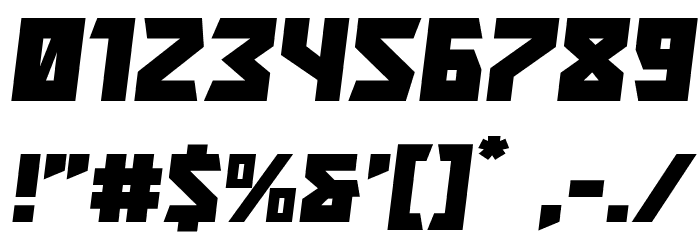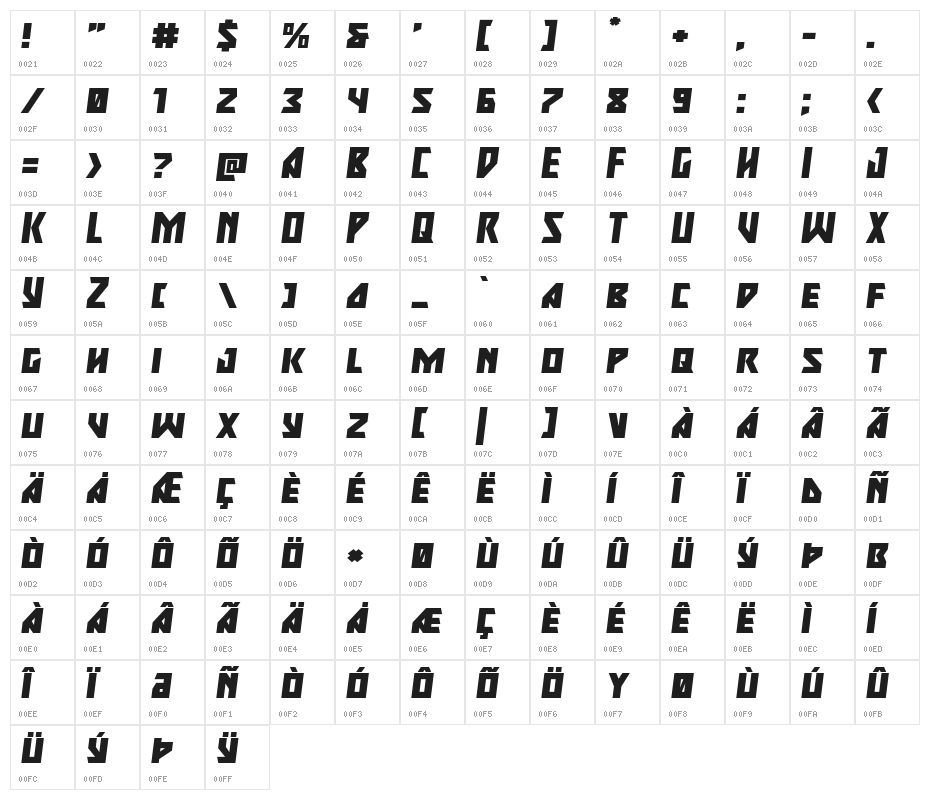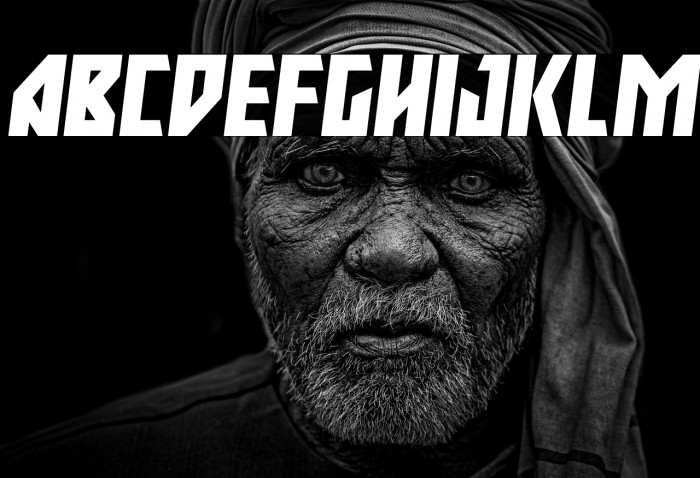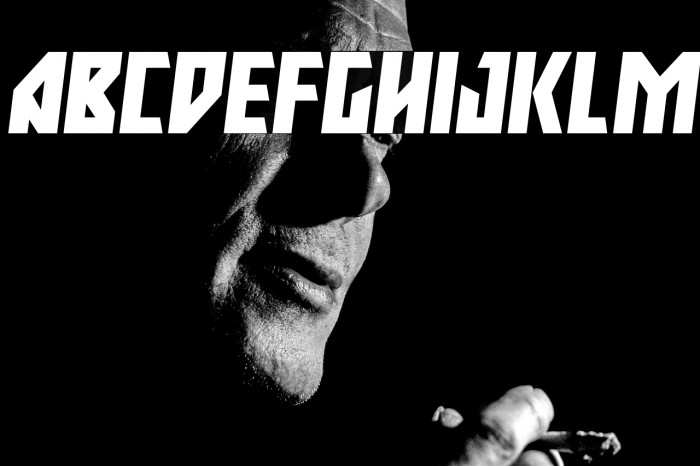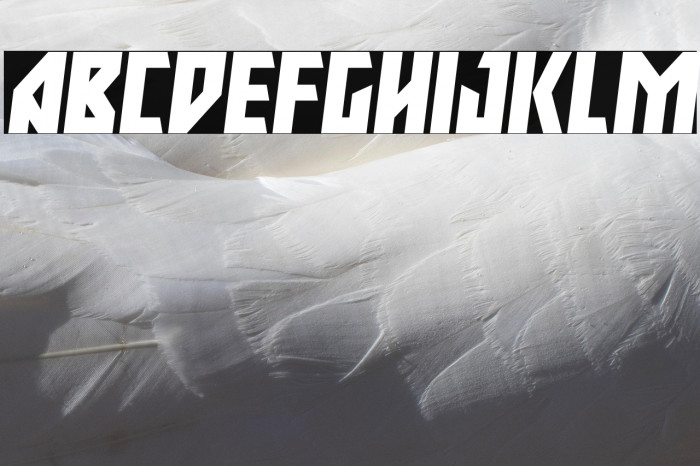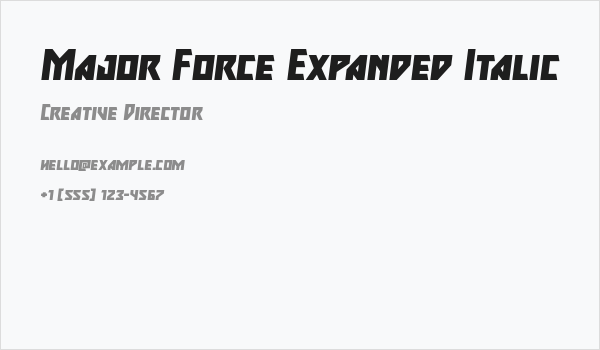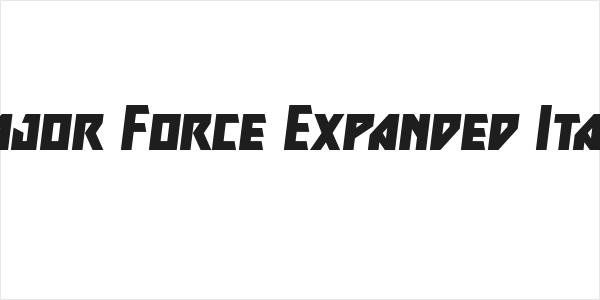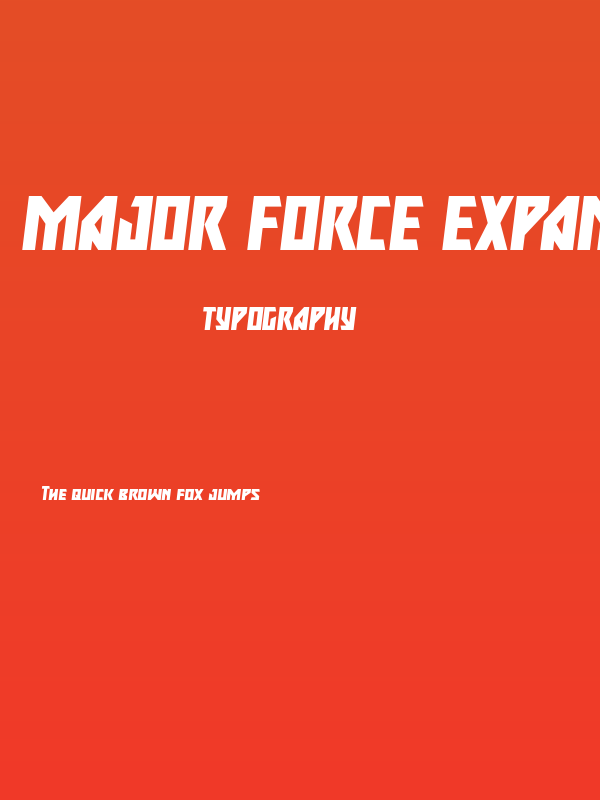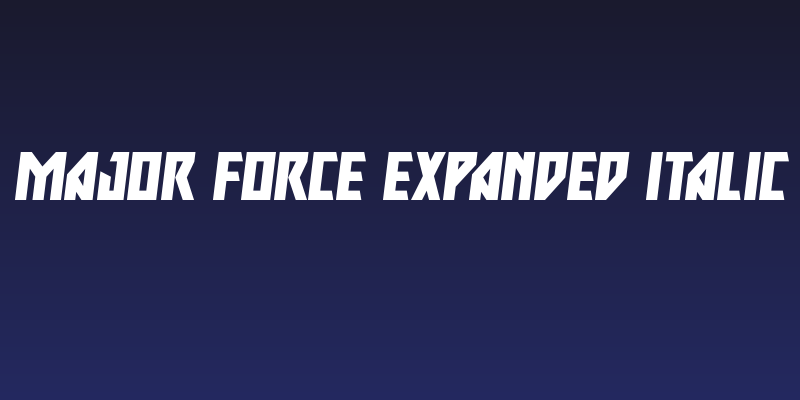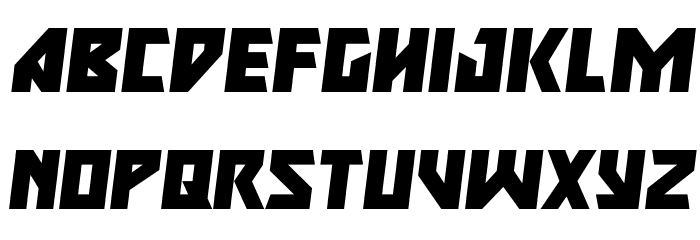
Major Force Expanded Italic Font
Major Force Expanded Italic Description
This font features a bold and dynamic design with an expanded width and italicized style. The characters are sharply angled, giving them a futuristic and aggressive appearance. The strokes are thick and consistent, providing a strong visual impact. The uppercase letters are particularly striking, with a geometric flair that adds to the overall modern aesthetic. The numbers and special characters maintain the same boldness and angularity, ensuring a cohesive look across all elements. This font is ideal for projects that require a strong, attention-grabbing typeface.
| Proposed Projects | Ideal for sports branding, video game titles, posters, and any project needing a strong, dynamic typeface. |